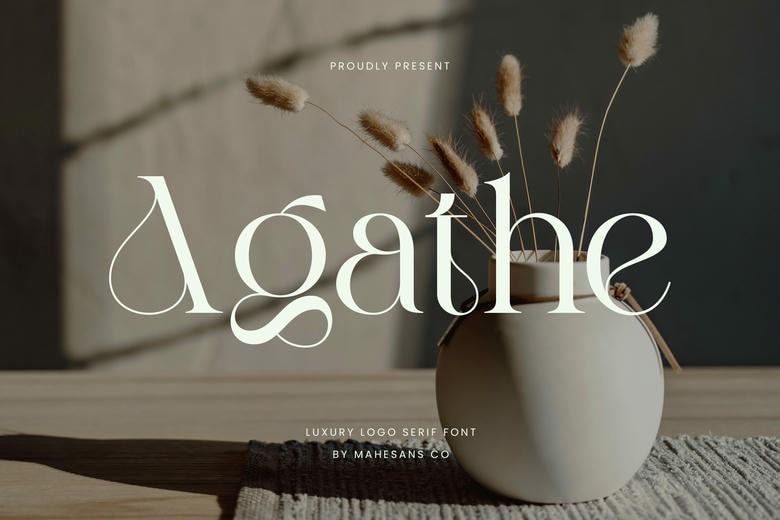
Agathe Font
Agathe is a simple and high contrast serif font that can mix classical sophistication with a contemporary touch. It was created with great attention to detail having flowing lines, stinging serifs, and a wonderful blend of thin and thick lines. Its artistic alternates and elegant ligatures, like the curving tt, cr and oo give it a quirky little personal flourish to every word, which makes it ideal as a brand, an editorial in the fashion industry and a luxury packaging.
The capitals give a rich and monumental shape, and the lower set accompanies them by the fluent readability and the decorative rhythm. Whether it is a minimalistic logo or luxury invitations, Agathe cannot be ignored and remain elegant. Be it a logo, a title of a magazine or a logo of a boutique brand, Agathe sounds classy, creative and certain.
Agathe Serif Font